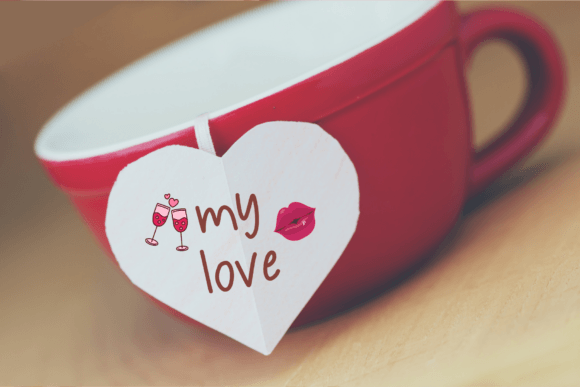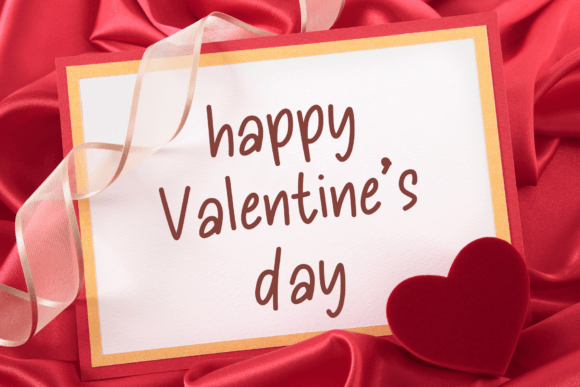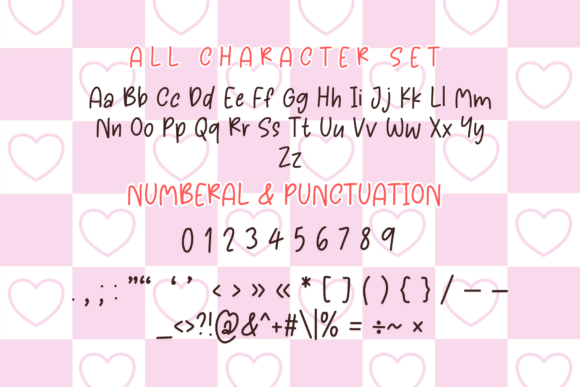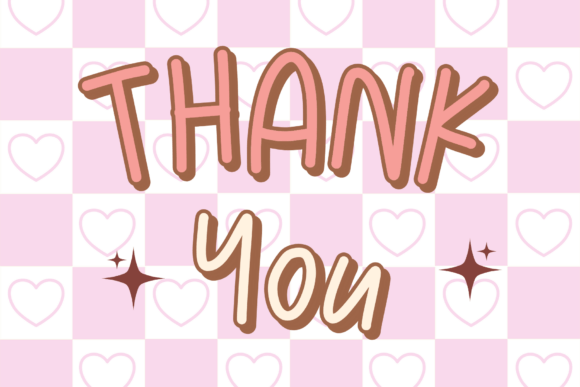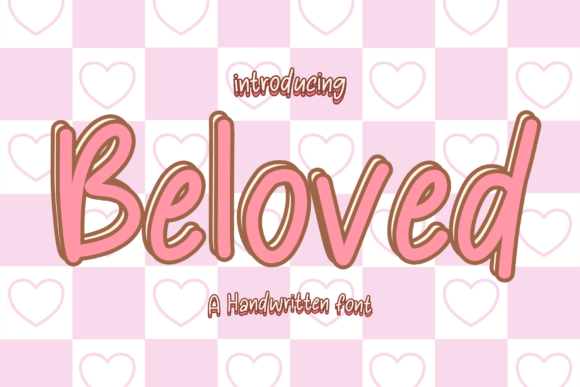
Introducing Beloved Font: The Perfect Valentine’s Day Companion for Designers and Crafters
Are you tired of using the same old fonts for your designs and crafts? Look no further! Beloved Font is here to add a touch of playfulness and authenticity to your projects. This adorable Valentine’s Day-themed font is perfect for designers, crafters, and anyone looking to add a personal touch to their creations.
What is Beloved Font?
Beloved Font is a cute, handwritten font that embodies the spirit of Valentine’s Day. Its playful and charming design makes it an ideal choice for a wide range of projects, from blog posts and logos to branding, ads, invitations, greeting cards, planners, photo albums, decorations, and more.
Why Choose Beloved Font?
So, what sets Beloved Font apart from other fonts? Here are just a few reasons why designers and crafters love this font:
- Playfulness: Beloved Font is designed to bring a smile to your face. Its playful and whimsical design makes it perfect for projects that require a touch of personality.
- Authenticity: This font is handcrafted with love and care, giving it a unique and authentic feel that’s hard to replicate with other fonts.
- Versatility: Beloved Font can be used for a wide range of projects, from digital designs to print materials.
- Ease of use: This font is easy to read and works well in both large and small sizes, making it perfect for a variety of applications.
Perfect for Valentine’s Day and Beyond
While Beloved Font is perfect for Valentine’s Day-themed projects, its versatility means it can be used for a wide range of designs and crafts beyond the holiday. Use it to add a personal touch to:
- Blog posts and articles
- Social media graphics and ads
- Planners and journals
- Photo albums and scrapbooking
- Decorations and DIY projects
How to Use Beloved Font in Your Designs